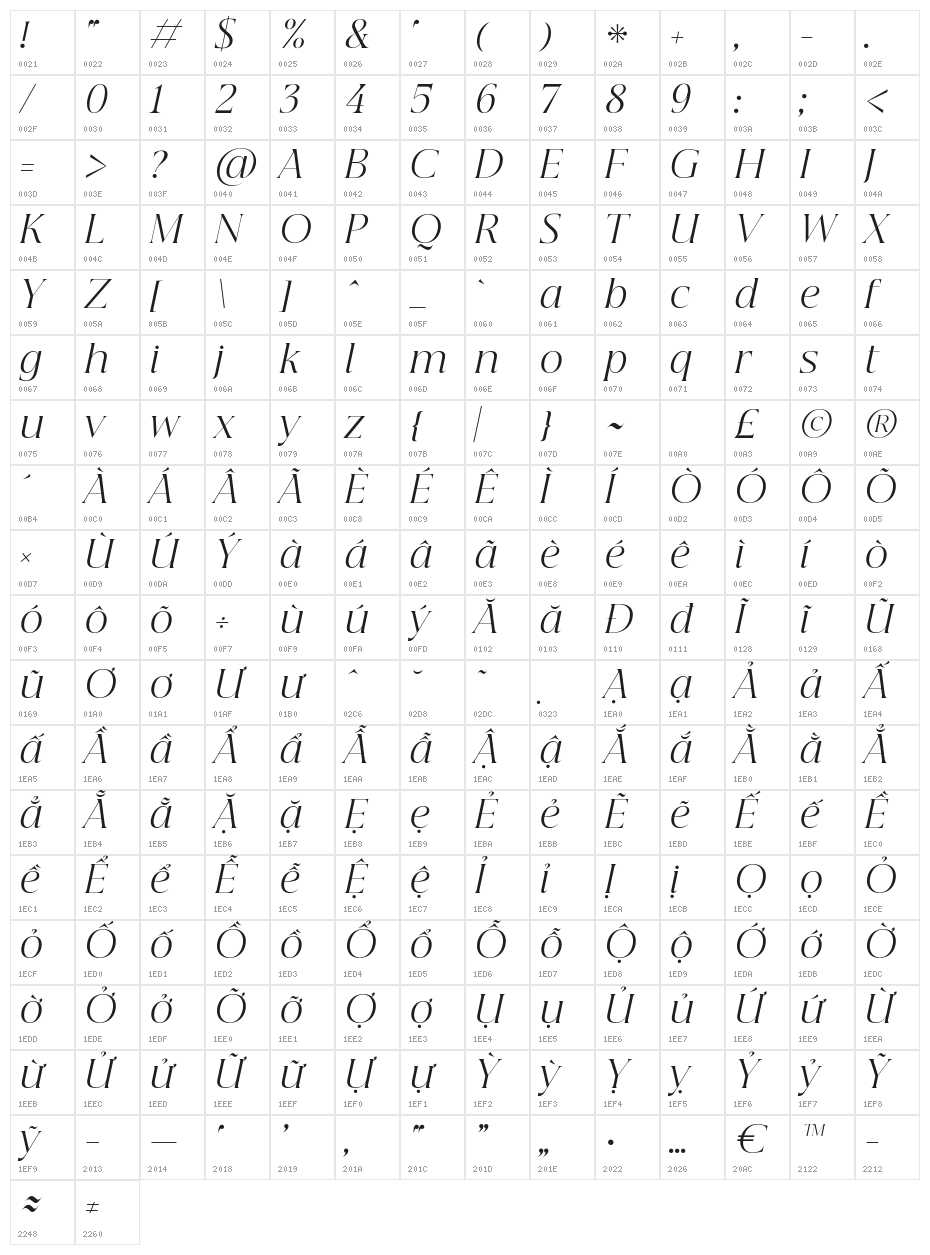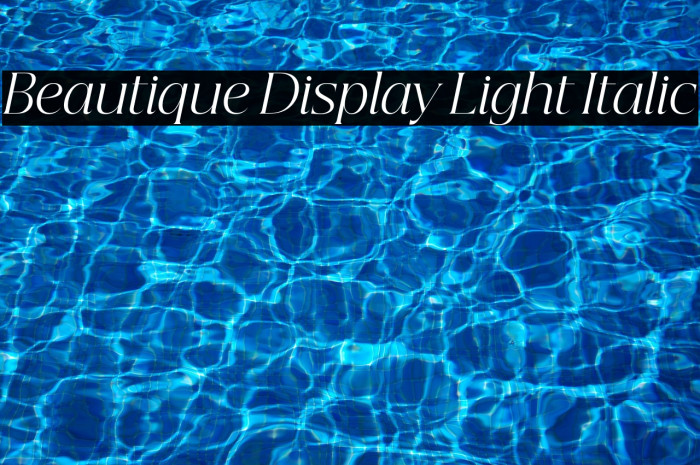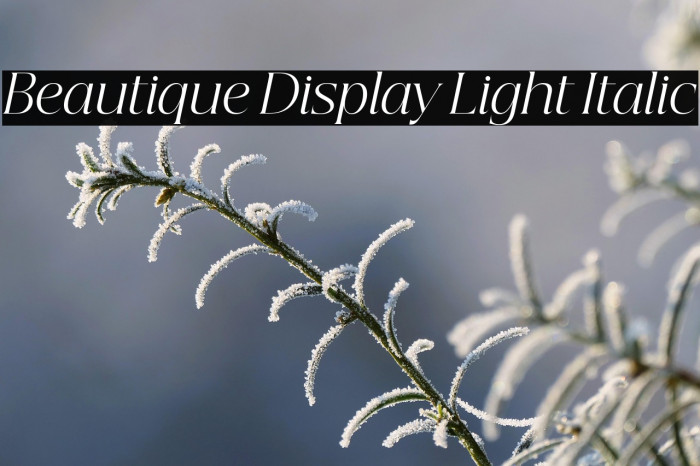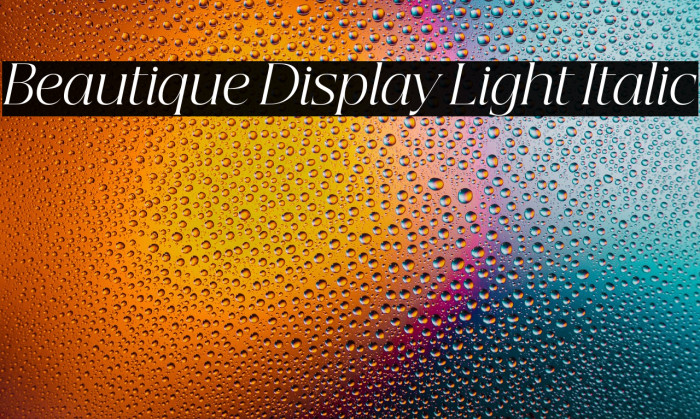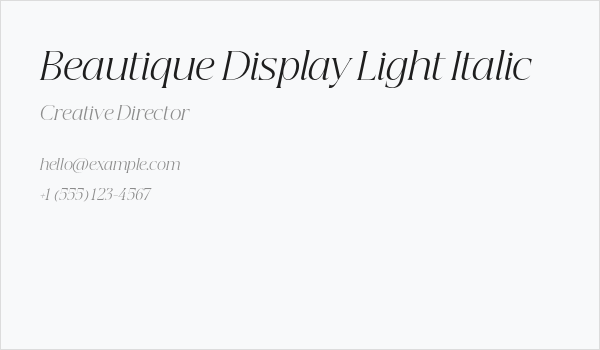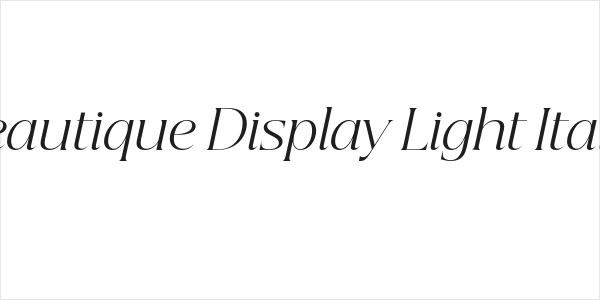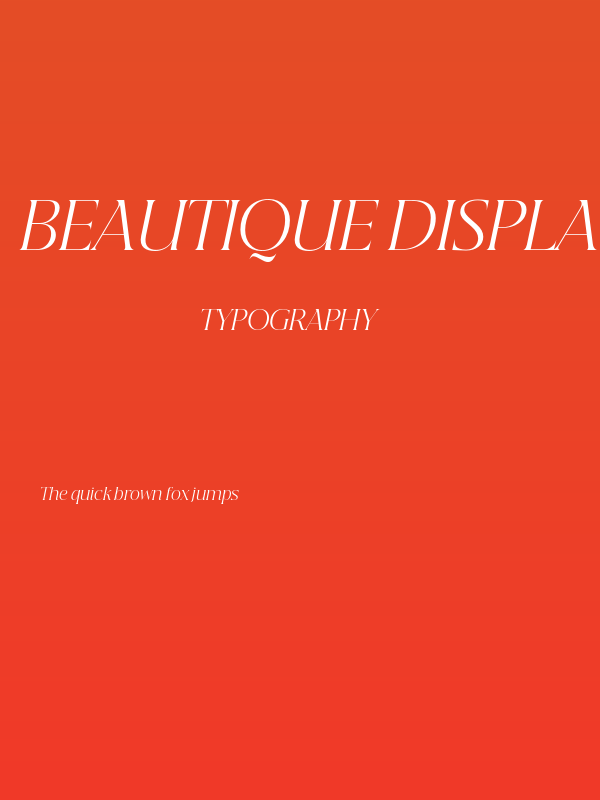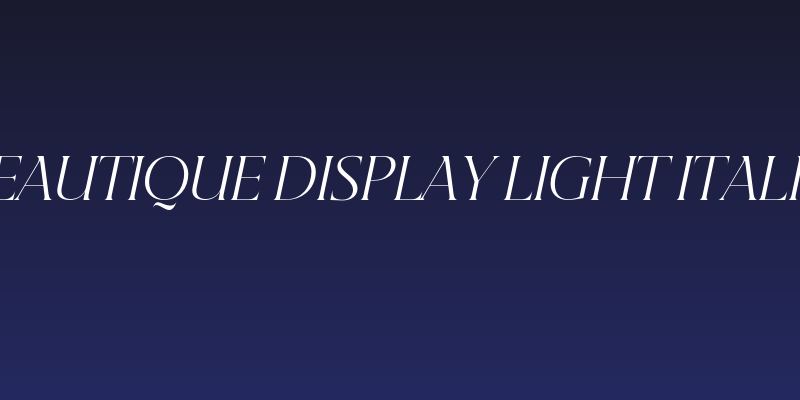
Beautique Display Light Italic Font
Beautique Display Light Italic Description
This elegant typeface features a refined and sophisticated design, characterized by its light weight and italic style. The letters exhibit a graceful slant, adding a sense of movement and fluidity. The strokes are delicate yet distinct, with a medium contrast that enhances readability while maintaining an airy appearance. The overall design is modern and stylish, making it suitable for upscale and contemporary applications. The character set includes both uppercase and lowercase letters, numerals, and a variety of special characters, all maintaining a consistent and harmonious look.
Use CaseHeadlines, Logos, Invitations
Proposed ProjectsIdeal for luxury branding, fashion magazines, elegant invitations, and high-end product packaging.